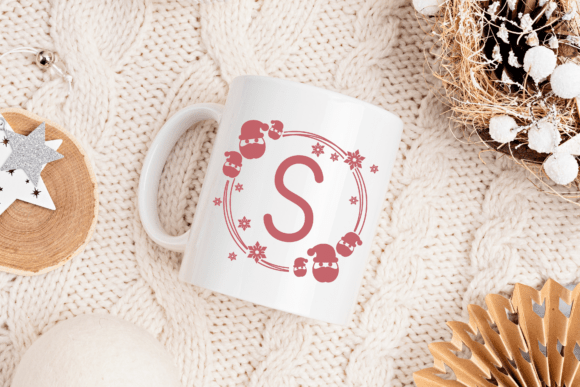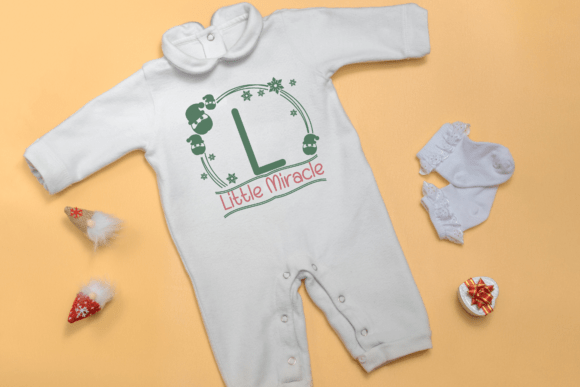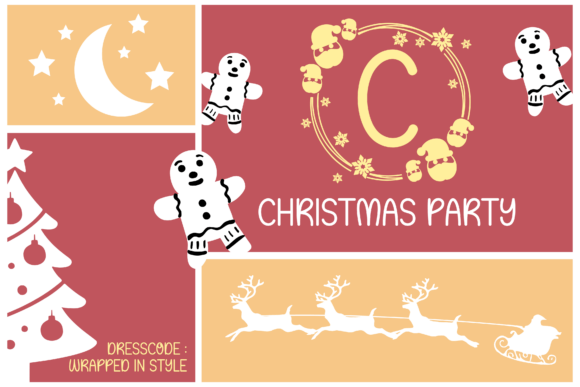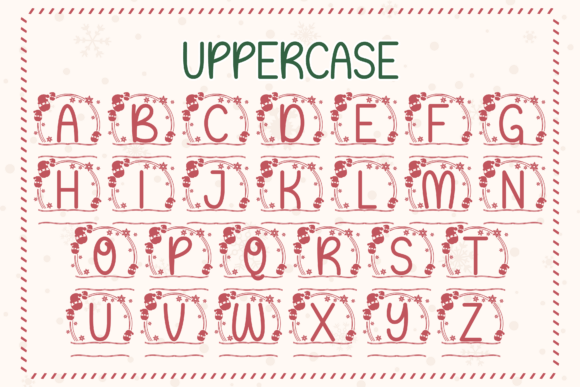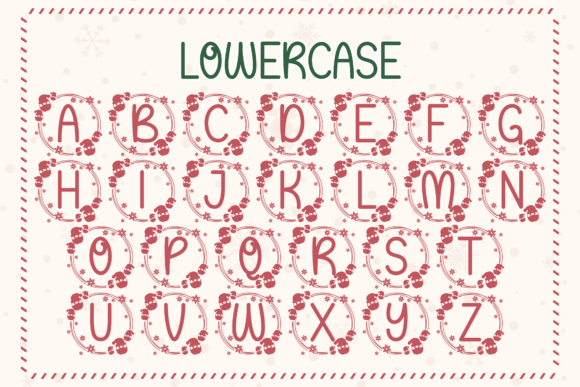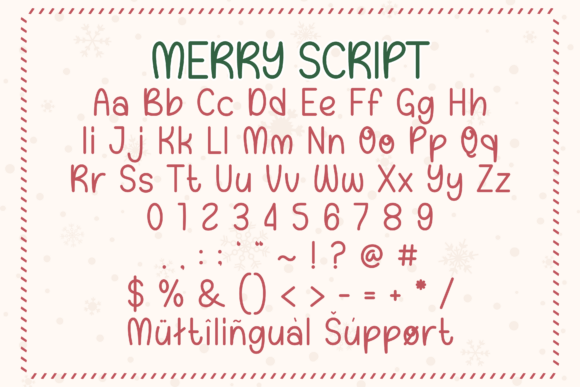
Introduction to Merry Cheer Monogram Font
As you sit amidst twinkling lights and the warmth of the holiday season, you’re inspired to create something special – a gift, a card, or a personalized banner that captures the magic of Christmas. It’s in these moments that the right design resource can elevate your project from ordinary to extraordinary. For designers seeking to infuse their work with the essence of the season, the Merry Cheer Monogram Font Duo is an indispensable tool.
With its bold, rounded all-caps display font and unique monogram frame font, this package offers a festive framework for clear titles and names, as well as a way to add whimsical, hand-drawn elements to your designs. Its free download and transparent background make it a high-quality design resource that can be easily integrated into any creative project, from customized gifts to personalized cards.
Key Features of Merry Cheer Monogram Font
- Customizable and editable, allowing designers to tailor the font to their specific creative project needs.
- Features a transparent background, making it easy to layer over other design elements without any visual clutter.
- Designed with a playful and festive feel, perfect for holiday-themed designs, party invitations, and other merry cheer-inspired projects.
Honest Review: Merry Cheer Monogram Font
As a designer, I’m always on the lookout for unique and high-quality design resources to elevate my creative projects. The Merry Cheer Monogram Font has caught my attention with its festive and elegant feel, perfect for the holiday season.
What works well with this font is its ability to create a cohesive and polished look for any design project. ✨ The monogram style is versatile and can be used for a variety of applications, from invitations to gift tags. The font also includes a transparent background option, making it easy to overlay on any image or design.
- High-quality design: The Merry Cheer Monogram Font is a great addition to any designer’s collection.
However, I do have to mention that the font is only available in a limited number of styles and weights, which may be a limitation for some designers. ⚠️ Additionally, the font may not be suitable for projects that require a more modern or minimalist aesthetic.
Overall, I would recommend the Merry Cheer Monogram Font for designers looking for a high-quality, free design resource that’s perfect for holiday-themed projects. With its elegant and festive feel, this font is sure to add a touch of cheer to any design project.
Common Use Cases for Merry Cheer Monogram Font
Merry Cheer Monogram Font is perfect for:
– Creating festive invitations and cards
– Designing holiday-themed social media posts
– Adding a touch of elegance to your presentation or document